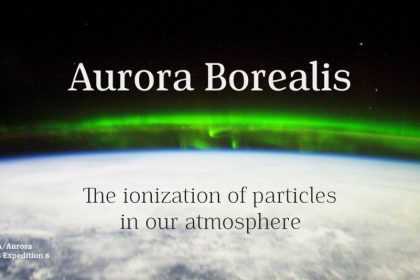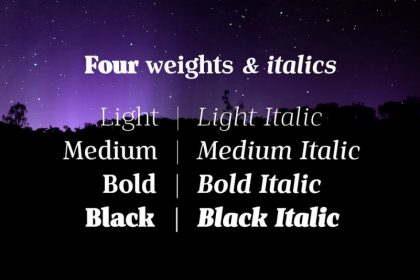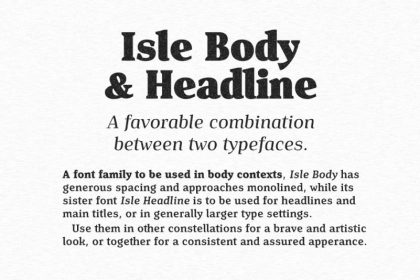
Isle Headline Font Family
Isle Headline Font Family – Free Demo
Hello there:) Isle headline is a header typeface. Isle Headline is a high-quality serif typeface family, drawn by Mans Greback during 2018 and 2019. It is a sharp font with a clear and attentive look, adapted for headlines, titles and large type settings. It comes in four weights, each one as italic, totaling in eight styles: Light and Light Italic, Medium and Medium Italic, Bold and Bold Italic, Black and Black Italic. The font family can be used in a combination with a font of a different style, or together with its sister font Isle Body, also a serif font, which has the same basic structure but with a softer look and adapted for body text and smaller type.